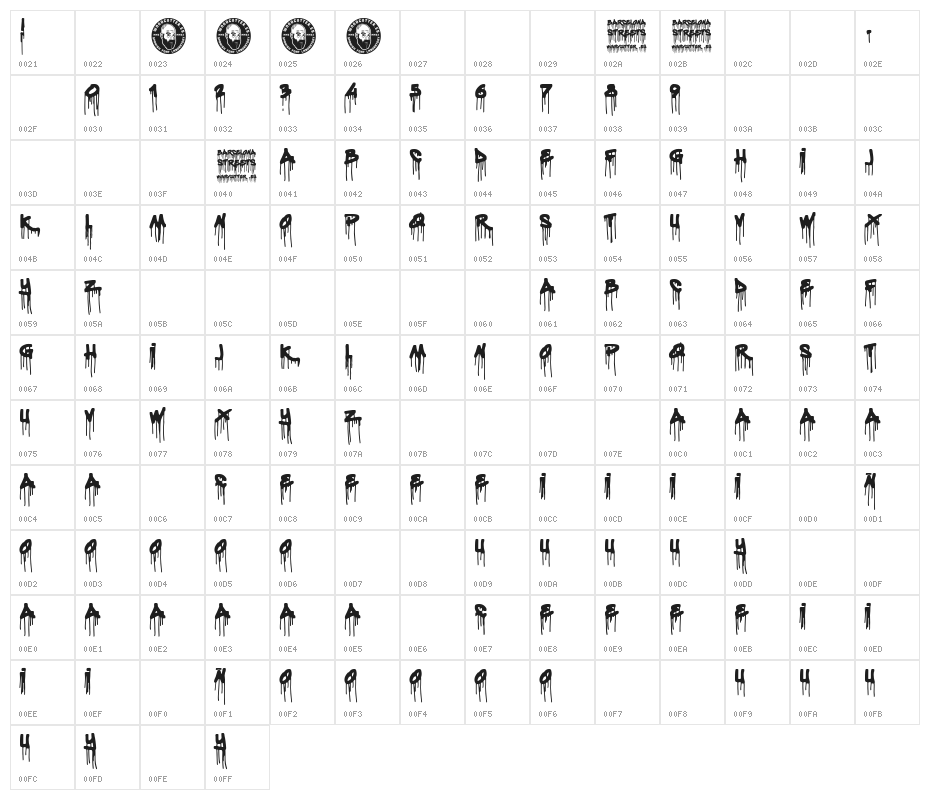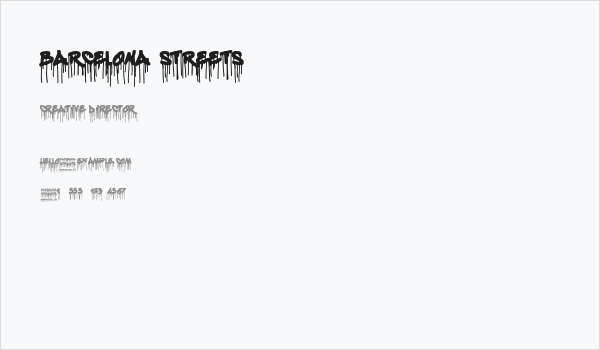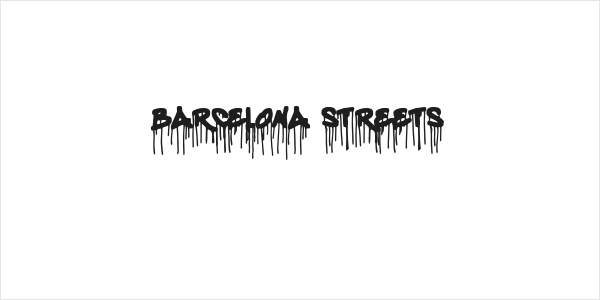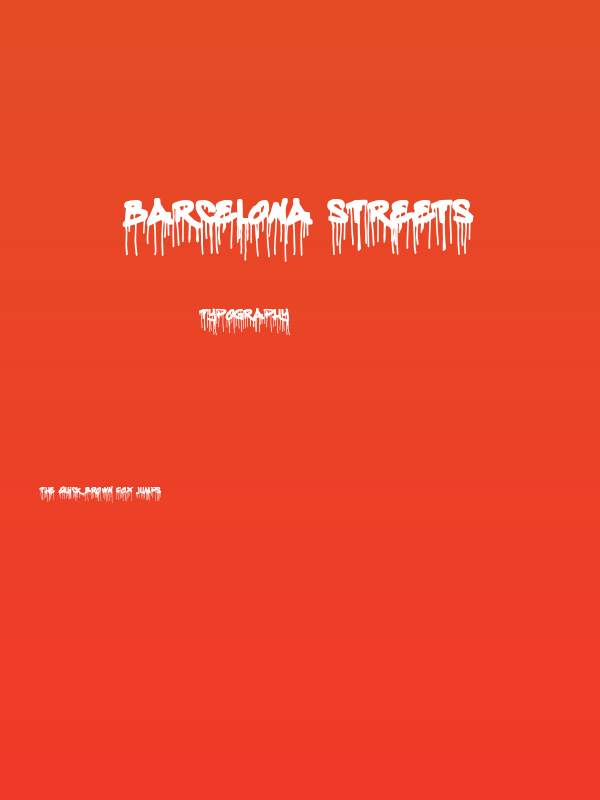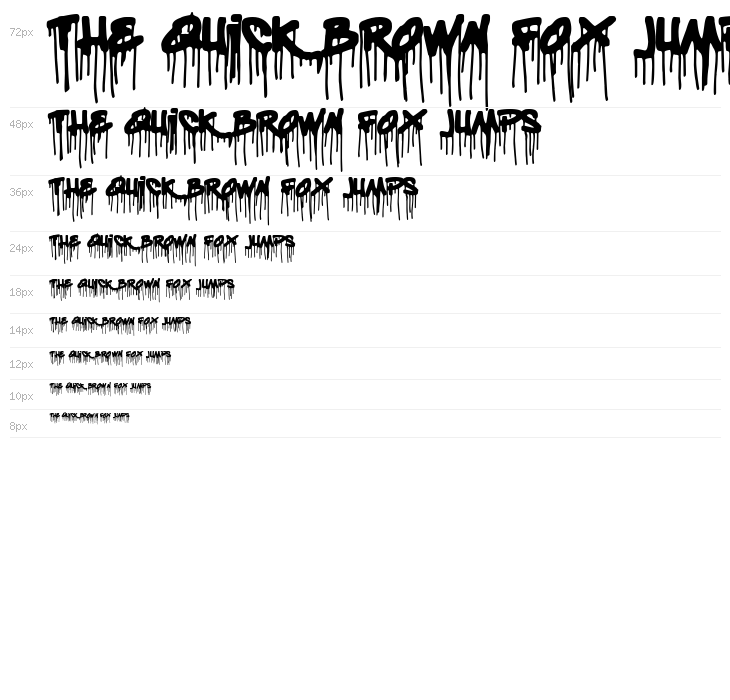
Barcelona Streets Font
Barcelona Streets Description
This font features a bold, graffiti-inspired style with a dripping paint effect, reminiscent of street art. The uppercase and lowercase letters are designed with a sense of movement and energy, capturing the essence of urban expression. The numbers and special characters maintain this dynamic aesthetic, making the font ideal for projects that require a rebellious or edgy look. The overall appearance is both striking and unconventional, with a strong visual impact that draws attention.
| Overall Style | Urban, Edgy, Rebellious |
| Proposed Projects | Ideal for street art posters, music album covers, urban fashion branding, and event flyers. |